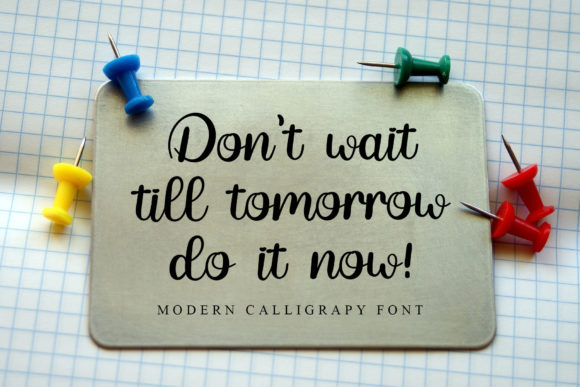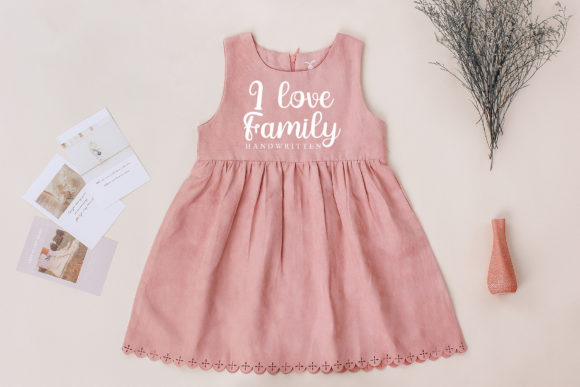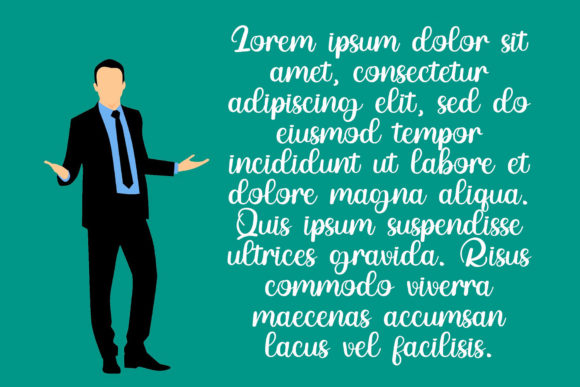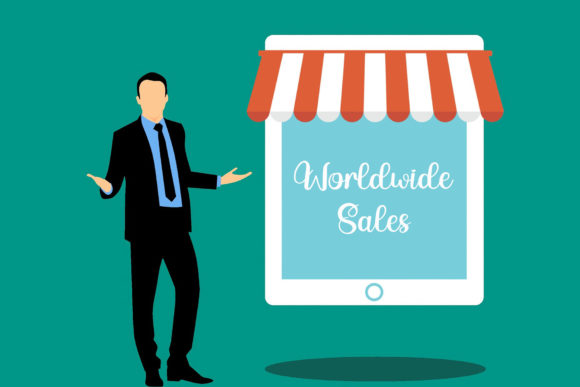
Simple Rainbow Font
About Simple Rainbow Font
Simple Rainbow is a charming and chic handwritten font, featuring round letters that add a delightful touch to your text. With its unique style, this font is a perfect choice for a variety of design projects, including wedding invitations, greeting cards, billboards, logos, business cards, and any other design that demands a customized and personalized touch.
The round lettered design of Simple Rainbow brings a playful and friendly quality to your text, making it especially suitable for projects that aim for a warm and inviting atmosphere. Whether used in wedding invitations or greeting cards, the font adds a touch of elegance and uniqueness to your designs.
In billboards and logos, Simple Rainbow stands out with its chic handwritten style, creating a memorable and distinctive visual identity. The font’s customization allows it to adapt seamlessly to different design contexts, ensuring a personalized and eye-catching result.
For business cards and other branding materials, Simple Rainbow adds a touch of personality and charm. Its chic handwritten design contributes to a brand image that is both approachable and stylish, making a lasting impression on your audience.
The versatility of Simple Rainbow allows it to enhance a wide range of designs, and its customized touch makes it a valuable asset for projects that require a personal and handcrafted feel. Whether used in print or digital media, this font brings a sense of creativity and uniqueness to your creations.
In summary, Simple Rainbow is more than just a font; it’s a creative tool that adds a chic and handwritten flair to your projects. Its round lettered design makes it especially suitable for projects that seek a customized touch, ensuring that your designs stand out with a touch of charm and elegance.